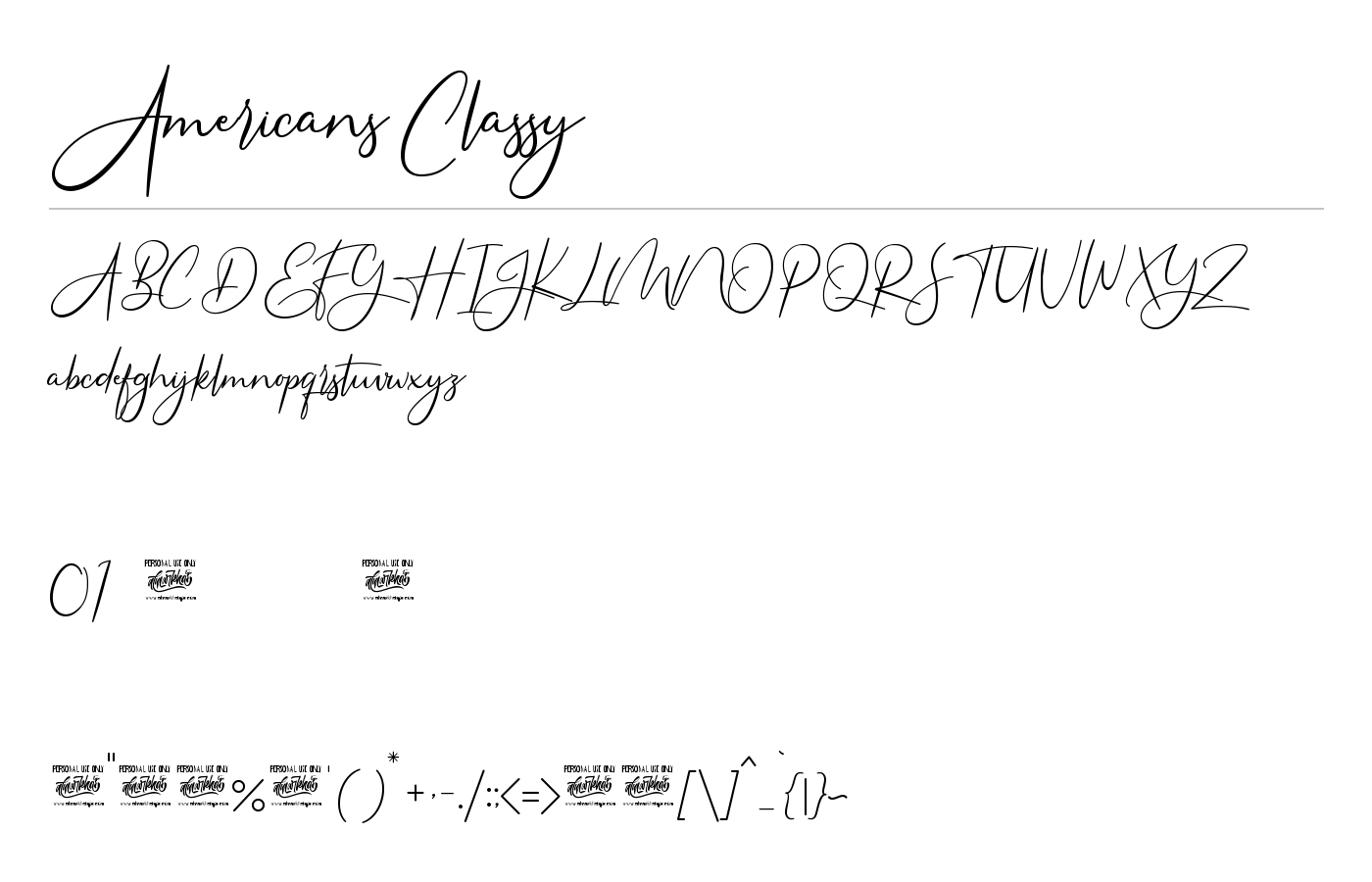
Americans Classy is a delicate, handwritten script font characterized by its thin, elegant strokes and flowing letterforms that convey a refined and sophisticated feel. Its tall, slender characters with graceful curves and loops make it perfect for luxury branding, wedding invitations, and stylish editorial designs where a touch of personal elegance is desired. This font works best in headlines or decorative accents, adding a modern yet classy aesthetic to any project.
Americans Classy Font
About Americans Classy Font
| Font family | Americans Classy Font |
| Designer | Almarkhatype Studio - Sucha - Abdul Malik |